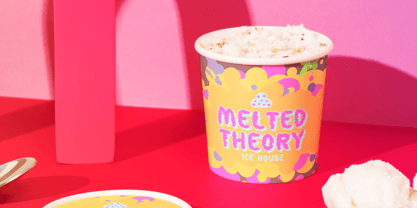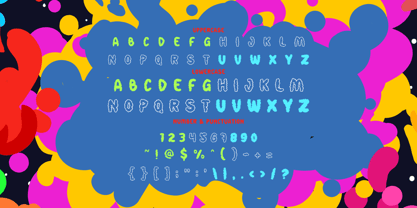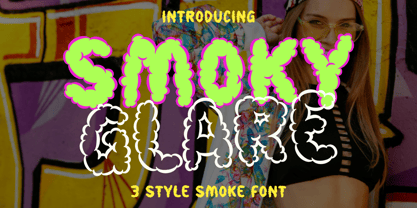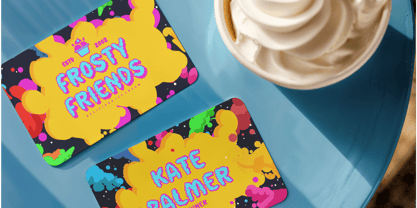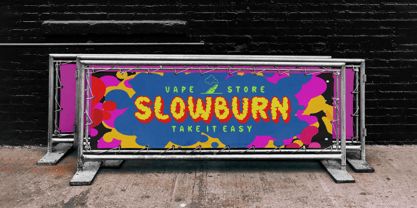
Smoky Glare
by Shanaf
The Smoky Glare Font Family was designed by Yesie Erma Yunita and published by Shanaf. Smoky Glare contains 3 styles and family package options. More about this family
Smoky Glare is a bold, cartoonish smoke font that blends softness and visual noise in three fun, eye-popping styles. Each letter looks like it's rising from a burst of colorful vapor or fluffy clouds, making it ideal for bold headlines and youthful designs. With a rounded puffy structure and expressive curves, this font creates a floating, animated vibe that grabs attention instantly. It includes uppercase, lowercase, numerals, and a wide range of punctuation—each crafted with hand-style fluidity and a smokey, bubbly shape. The letterforms maintain good legibility even with their decorative flair, making them easy to use across media.
Perfect for logos, vape branding, candy or ice cream packaging, kids merchandise, streetwear labels, posters, or any playful project—Smoky Glare brings energy and light-heartedness. The variety of styles gives flexibility in layout design, letting you combine outlines, solids, and puff effects for visual variety. Whether you're going for sweet, funky, or surreal, this smoke font brings the heat in style.